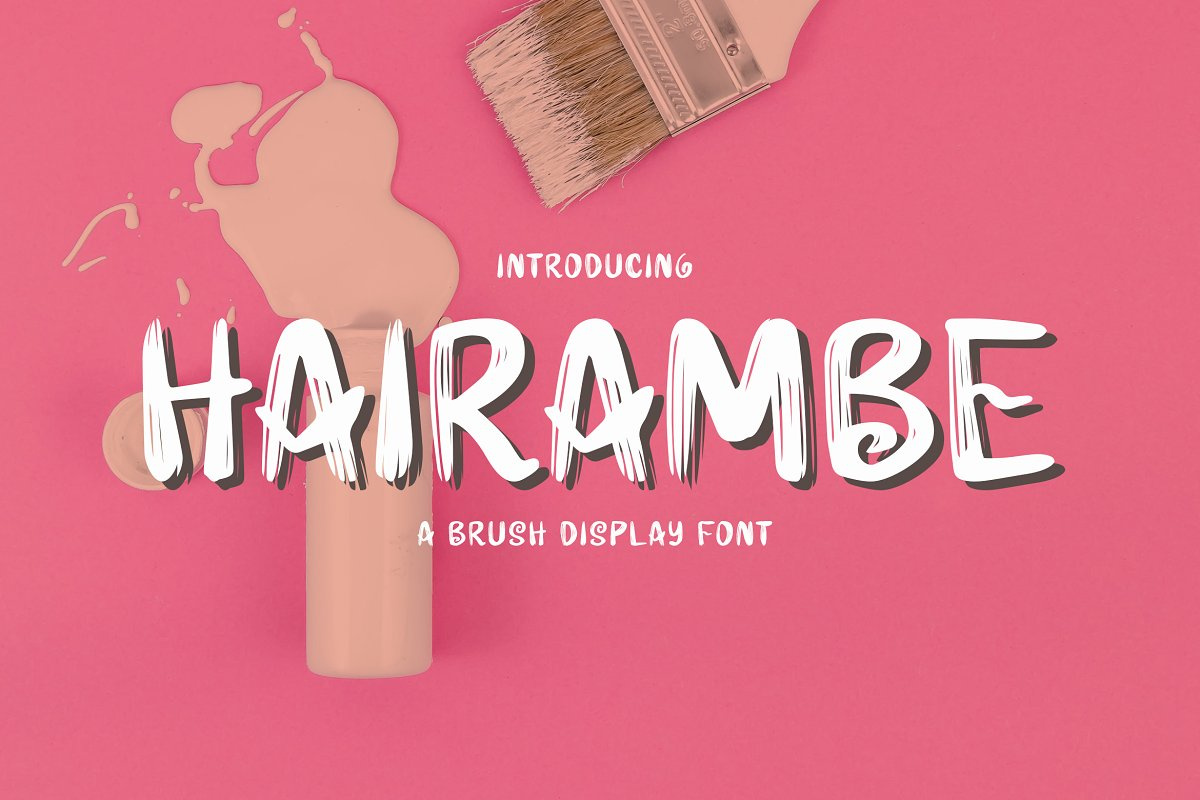
Hairambe – Brush Font
Hairambe is a cute and brush display font. Add this font to your creative ideas and notice how it will make them stand out!
Hairambe is the best choice for your professional design projects, including signature, watermark on photography, quotes, wedding, fashion, letter, invitation, business card, logo, branding, magazines, social media, advertisements, product designs, and much other design projects.